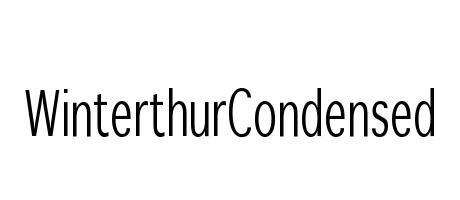
WinterthurCondensed
WinterthurCondensed: A font whispering tales of old Swiss towns, its condensed form exuding efficiency and elegance. Clean lines and subtle curves blend urban practicality with a touch of historical charm, perfect for headings that demand attention without shouting. A timeless choice for sophisticated projects.